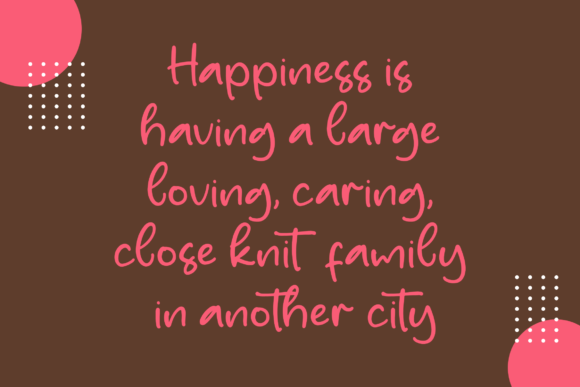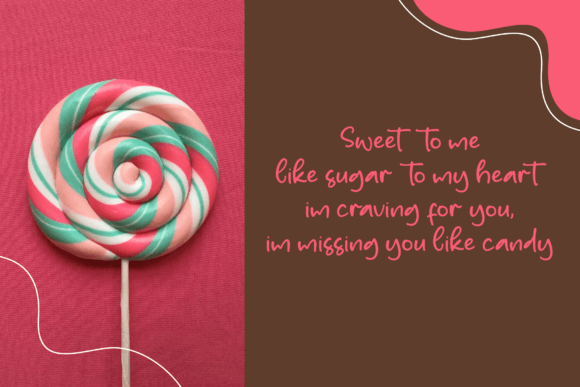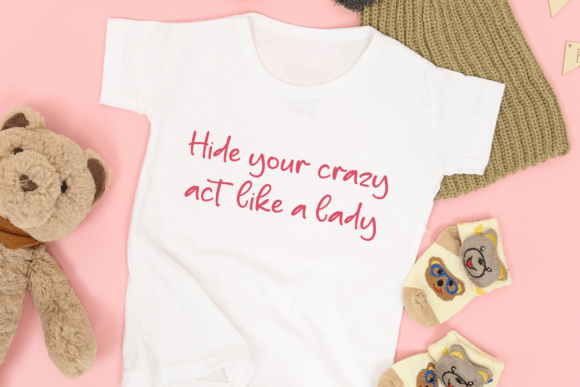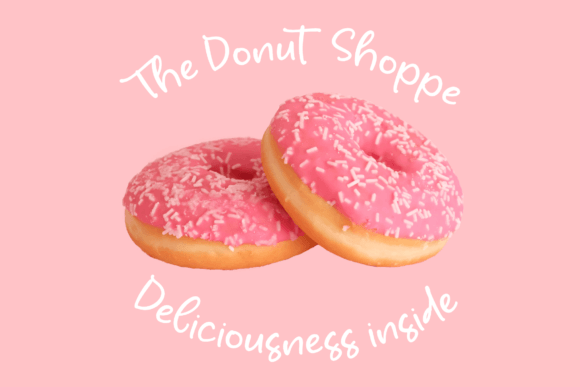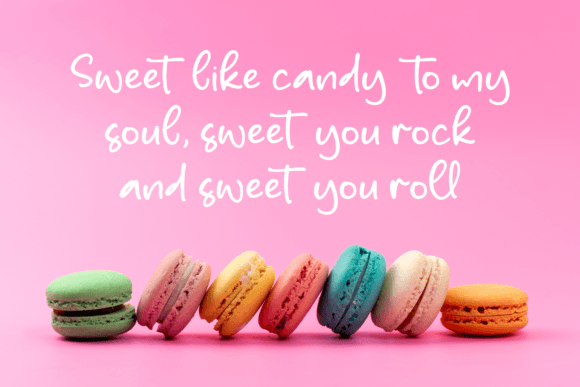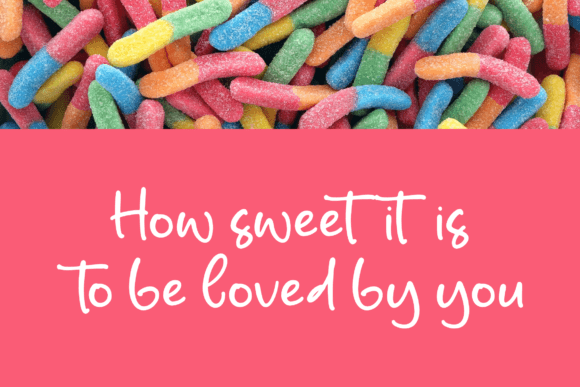
Introduction to Hugshine Growter Font
Have you ever found yourself scribbling down a quote or a message in a beautiful handwritten font, only to realize that you wish you could use it in your next design project? That’s exactly what I did, until I stumbled upon the Hugshine Growter Font – a delightful, high-quality script font that’s perfect for adding a touch of personality to any project.
As a designer, I can attest to the importance of having a reliable design resource like Hugshine Growter Font. With its free download and transparent background, it’s a game-changer for creatives who want to add a professional touch to their work. Whether you’re working on logos, branding projects, or product packaging, this font is sure to elevate your designs and make them stand out from the crowd.
In this article, we’ll dive deeper into the world of Hugshine Growter Font and explore its many uses, from homeware designs to photography and beyond. Whether you’re a seasoned designer or just starting out, this font is sure to become a valuable addition to your creative toolkit.
Key Features of Hugshine Growter Font
- Unique, hand-drawn style with a transparent background, ideal for adding a personal touch to designs.
- Includes a comprehensive set of glyphs, including uppercase and lowercase letters, numbers, and punctuation marks.
- Designed to be highly legible, even at small font sizes, making it perfect for use in presentations, signage, and other display-based projects.
- Supports a wide range of languages, making it a versatile design resource for global creative projects.
Honest Review: Hugshine Growter Font
As a designer, I’m always on the lookout for high-quality design resources that can elevate my creative projects. Recently, I stumbled upon the Hugshine Growter Font, and I must say, it’s been a pleasant surprise.
What works well with the Hugshine Growter Font is its versatility and unique aesthetic. It’s perfect for creating eye-catching headings and titles, and its transparent background makes it easy to layer over different design elements.
Some of the key features that I appreciate about this font include:
- ✨ High-quality vector graphics for crisp and clear rendering
- ⚠️ Limited character set, which may not be suitable for extensive text-based projects
Overall, I’m impressed with the Hugshine Growter Font’s potential to add a touch of creativity to my design projects. While it may have some limitations, it’s a solid addition to any designer’s toolkit.
Getting the Most Out of Hugshine Growter Font
To get the most out of Hugshine Growter Font, use it in conjunction with other high-quality design resources, such as graphics and illustrations. This will help you create a cohesive and visually appealing design. You can also experiment with different font sizes, colors, and styles to add creativity to your project.
Hugshine Growter Font is a versatile font that can be used in a variety of creative projects, such as social media graphics, blog posts, and marketing materials. It’s also great for use in presentations, documents, and websites. With its transparent background and high-quality design, Hugshine Growter Font is a valuable resource for designers and non-designers alike.